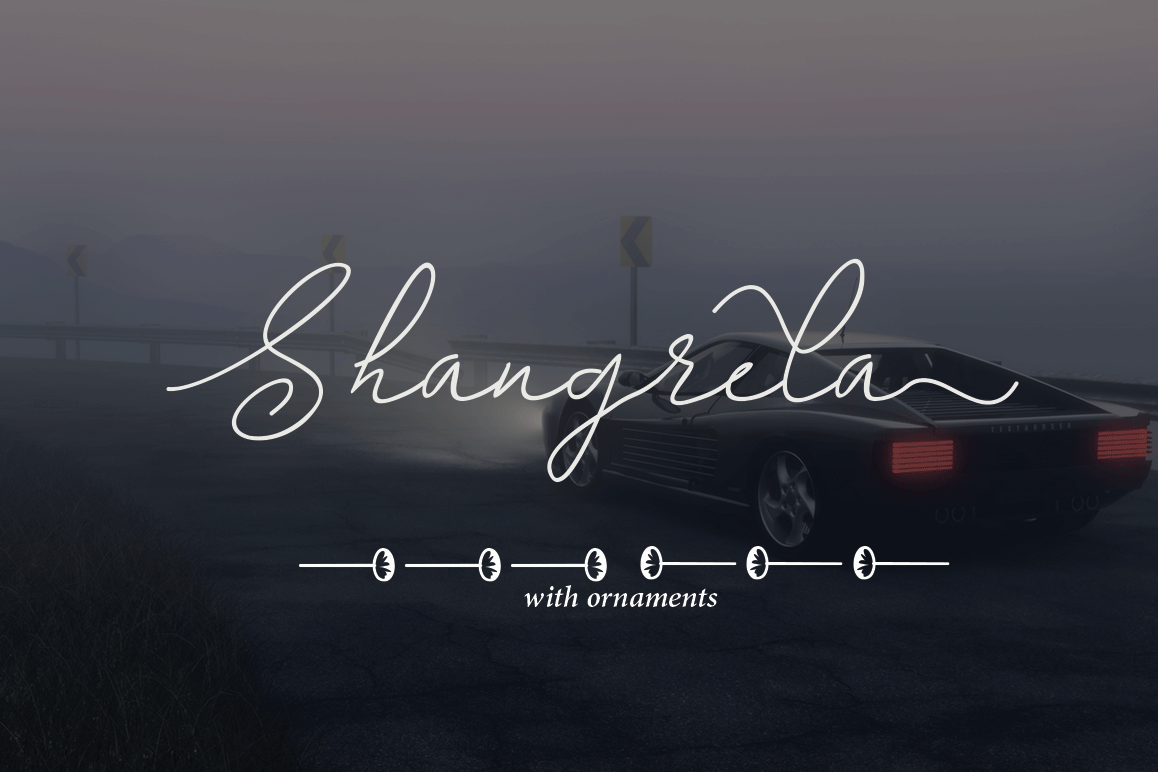
Shangrela Modern Calligraphy. This font was designed by handwriting, and it has a modern andunique forms of calligraphy, the writing style is very natural.The Features of this fonts is;